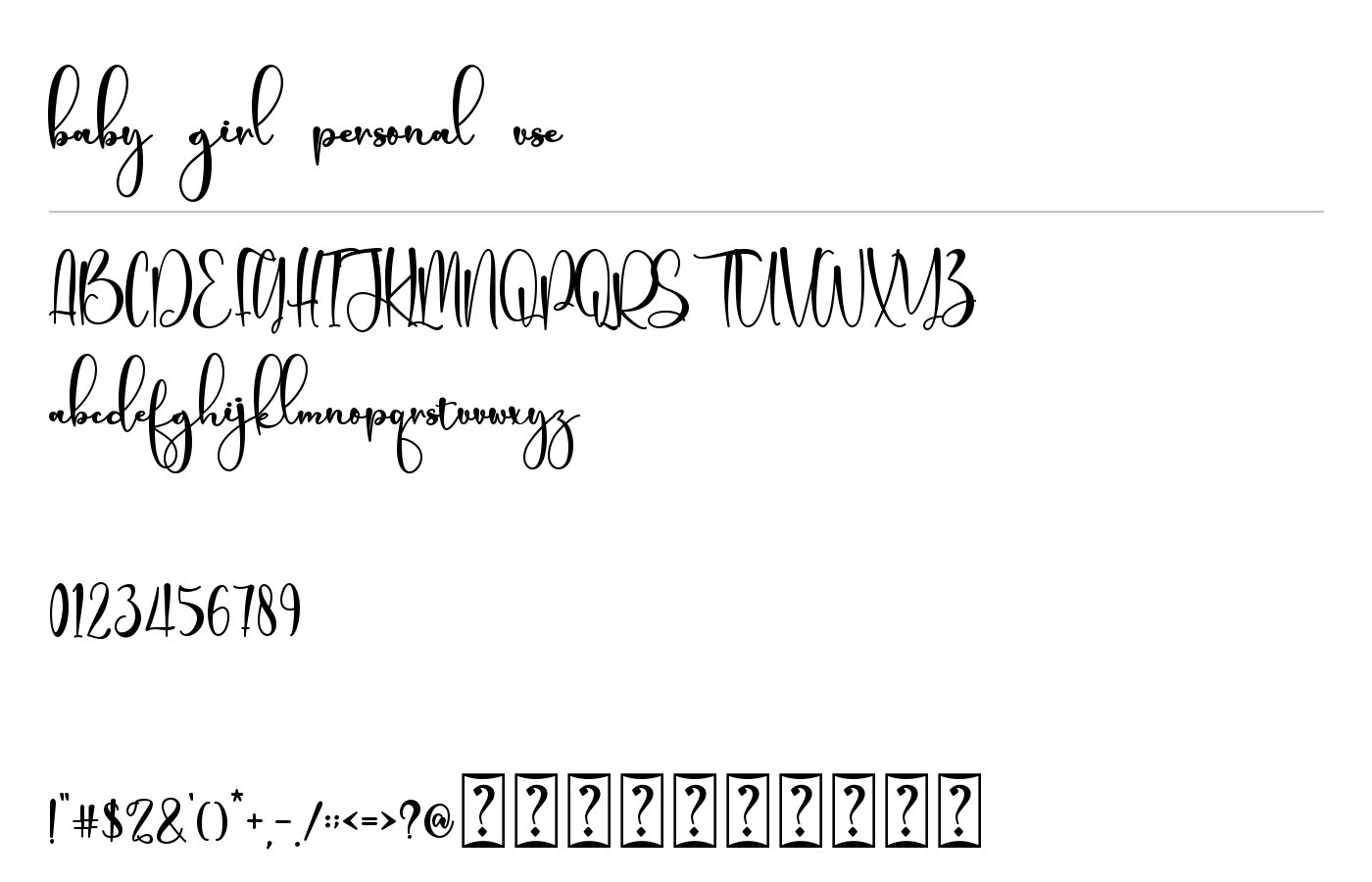
Baby Girl Personal Use is a playful and elegant handwritten script font featuring tall, flowing letterforms with a casual, feminine charm. It combines delicate thin strokes with looping swashes, creating a friendly and whimsical feel that suits invitations, greeting cards, and branding for lifestyle or children’s products. This font works best in decorative, headline applications where its unique, airy style can shine.
baby girl personal use Font
About baby girl personal use Font
| Font family | baby girl personal use Font |